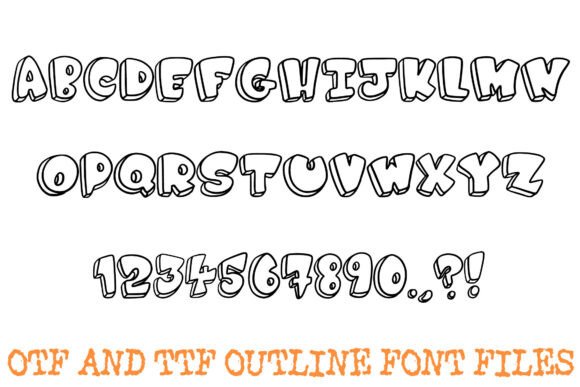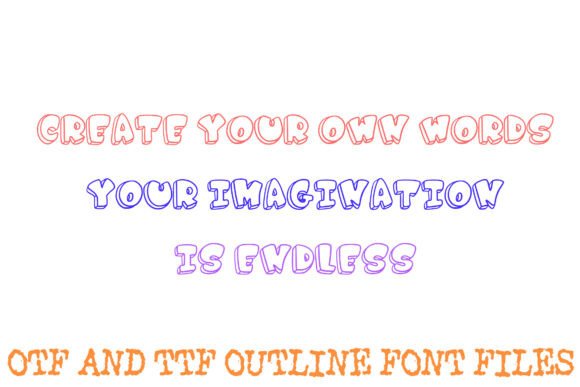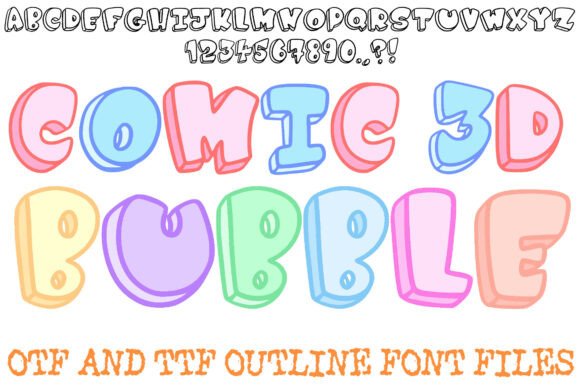
Inject a Burst of Personality with Comic 3D Bubble Font
Are you tired of using the same old fonts that blend into the background? Do you want to add a burst of high-energy personality to your next project? Look no further than Comic 3D Bubble, a typeface that’s sure to make your designs leap off the page. Inspired by the golden age of classic comic book aesthetics, this hand-drawn display alphabet is the perfect combination of playful nostalgia and modern edge.
The Inspiration Behind Comic 3D Bubble
Comic 3D Bubble draws its inspiration from the classic comic books of the past. The bold, inflated characters are reminiscent of the larger-than-life superheroes and villains that once dominated the pages of comic books. With its clean, heavy outlines and professional-grade shadows, this font is sure to bring a touch of nostalgia to your designs. However, it’s not just a retro throwback – Comic 3D Bubble has a modern edge that’s perfect for designers and crafters who want to create something fresh and exciting.
What Makes Comic 3D Bubble So Special?
So, what sets Comic 3D Bubble apart from other fonts? Here are just a few features that make it a standout:
- Bold Inflated Perspective: Every character boasts a consistent, balloon-like silhouette with a detailed 3D drop shadow, giving your typography a heavy, physical presence.
- Artisan Sketched Outlines: Slightly irregular, hand-inked borders provide a unique, hand-crafted feel that’s perfect for designers who want to add a touch of personality to their work.
- Perfect Balance of Playfulness and Sophistication: Comic 3D Bubble strikes the perfect balance between playful nostalgia and modern edge, making it perfect for a wide range of design applications.
Use Comic 3D Bubble for High-Impact Designs
Comic 3D Bubble is the perfect font for designers who want to create high-impact designs that grab attention. Here are just a few ways you can use this versatile font:
- Social Media Headlines: Use Comic 3D Bubble to create eye-catching social media headlines that demand attention.
- YouTube Thumbnails: Create vibrant, engaging YouTube thumbnails that showcase your brand’s personality.
- Streetwear Branding: Use Comic 3D Bubble to create bold, eye-catching branding for your streetwear label.
Why Choose Comic 3D Bubble?
With so many fonts to choose from, why should you choose Comic 3D Bubble? Here are just a few reasons:
- Unique and Memorable: Comic 3D Bubble is a one-of-a-kind font that’s sure to make your designs stand out.
- Versatile: This font can be used for a wide range of design applications, from social media headlines to streetwear branding.
- Easy to Read: Despite its bold, 3D appearance, Comic 3D Bubble is easy to read, even at small sizes.